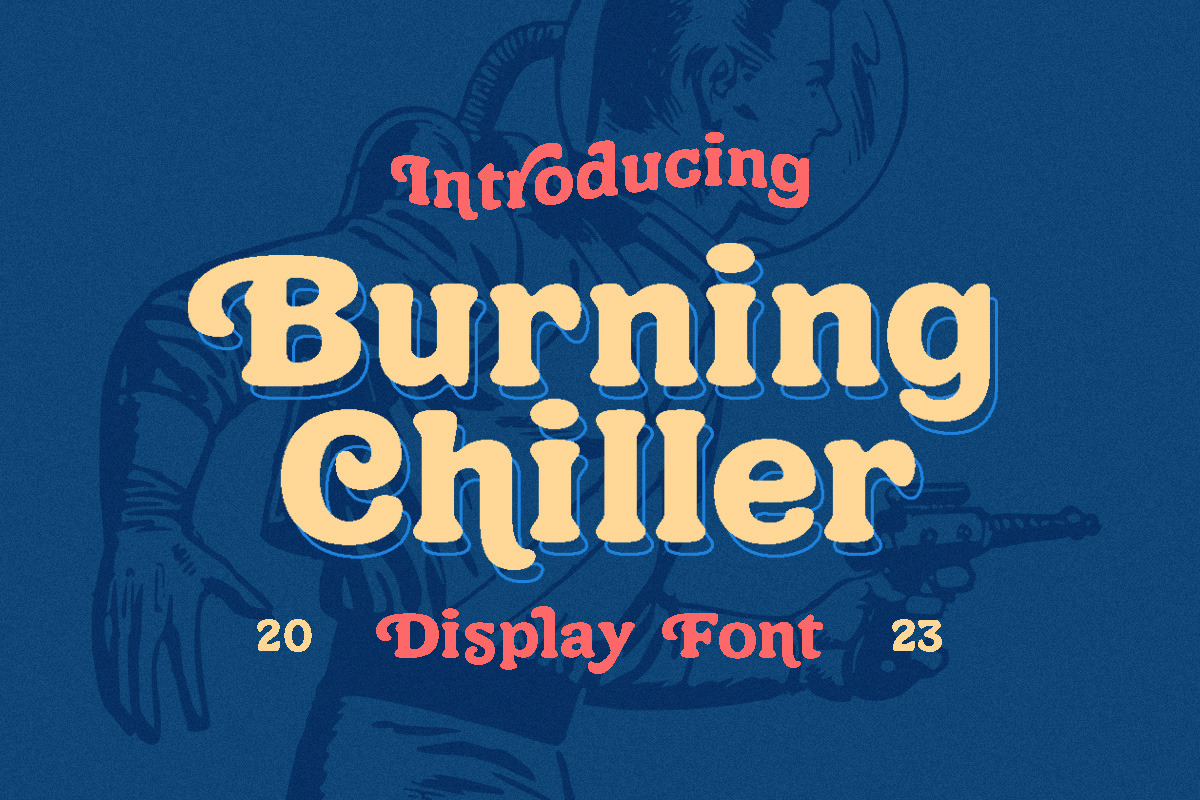
Burning Chiller - Display Font
Introducing Burning Chiller, a playful typeface that captures the essence of the 90s era. Immerse yourself in its retro charm. Explore the versatility of this font by incorporating the accompanying cartoon illustration to enhance your design.
This font is exceptionally well-suited for a range of applications, particularly for logos and various formal formats such as invitations, labels, magazines, books, greeting and wedding cards, packaging, fashion, makeup, stationery, novels, and diverse advertising materials.